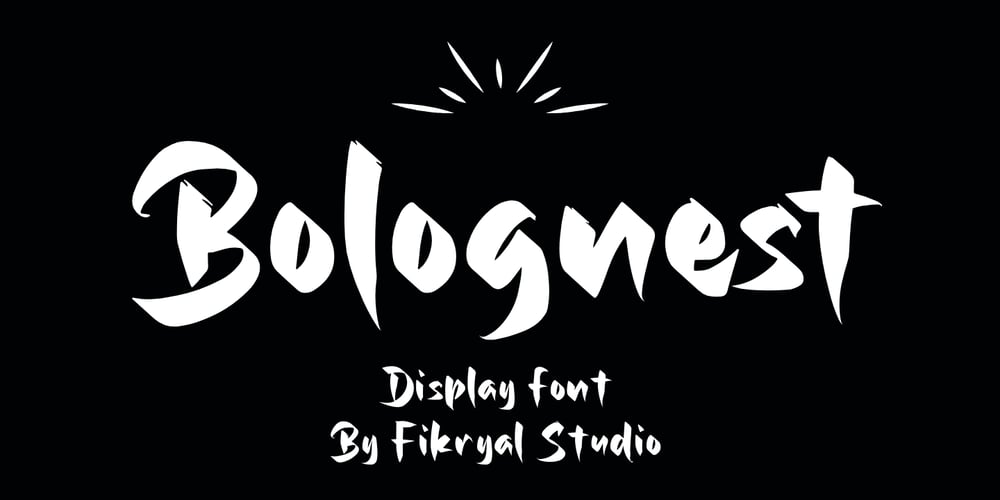
Bolognest
Bolognest font
Bolognest Font Family was designed by Muhammad Fikry and published by Fikryal. Bolognest contains 1 styles and family package options. Bolognest – Handwritten Display FontBolognest is a handwritten display font that exudes natural beauty and a touch of uniqueness. Suitable for various design projects such as posters, logos, invitations, and greeting cards, this font brings a personal and warm feel. Packed with alternative characters and ligatures, Bolognest offers incredible creative flexibility. Easy to use with a variety of design software, Bolognest is the perfect choice to add elegance and character to any of your pieces.If you have any questions please don’t hesitate to contact mefollow my Instagram: fkryallThank you